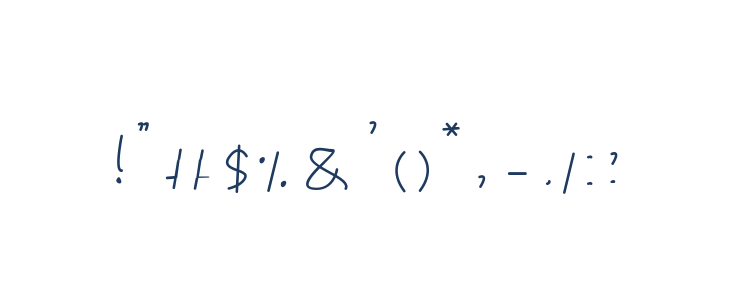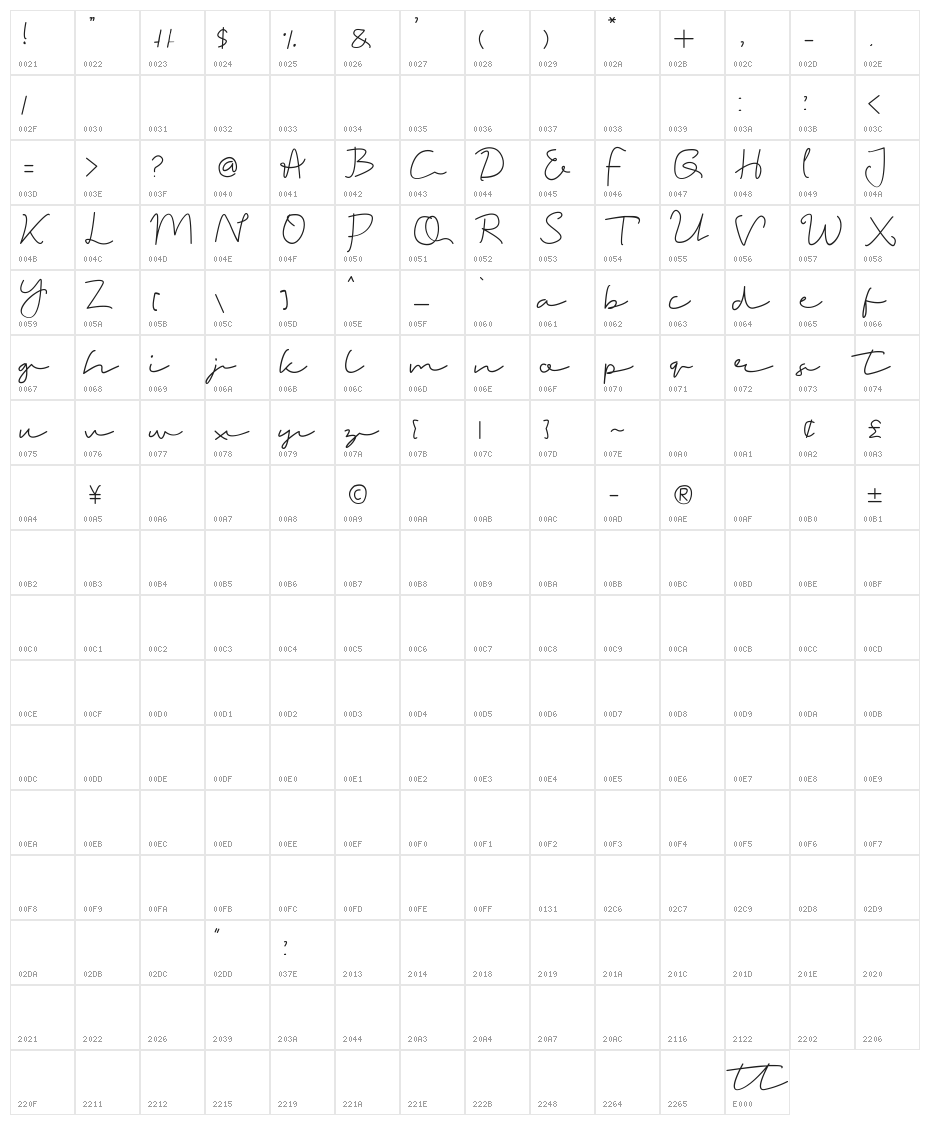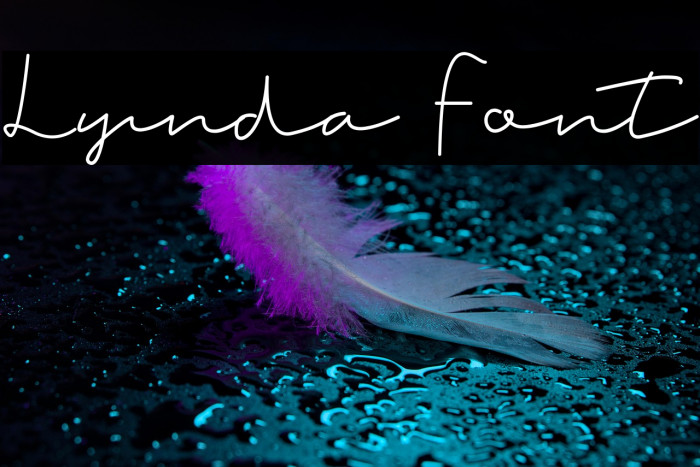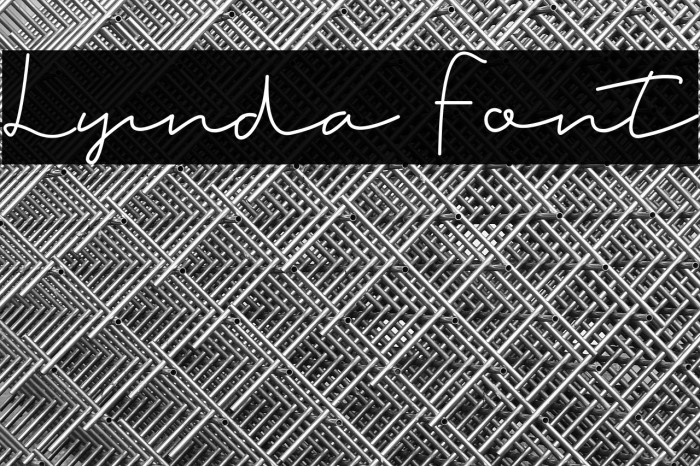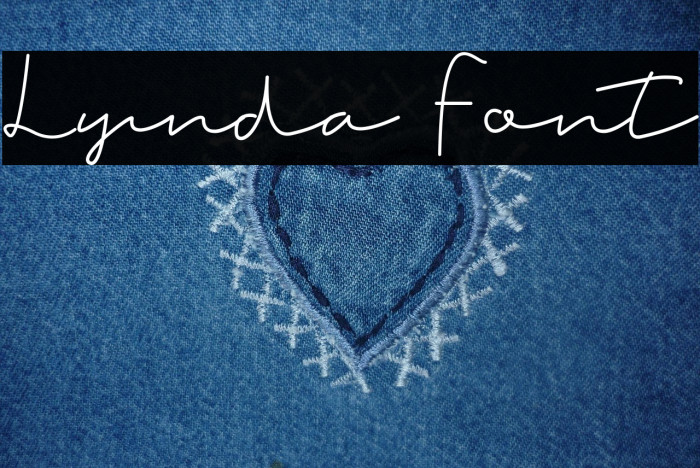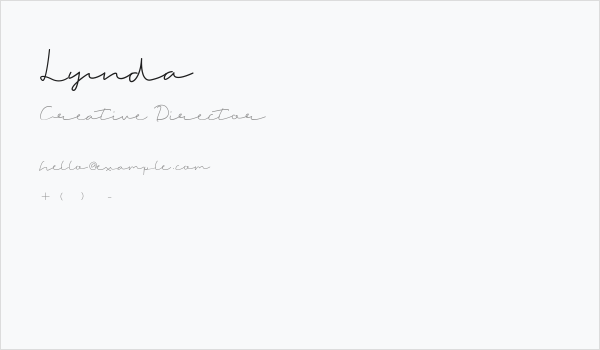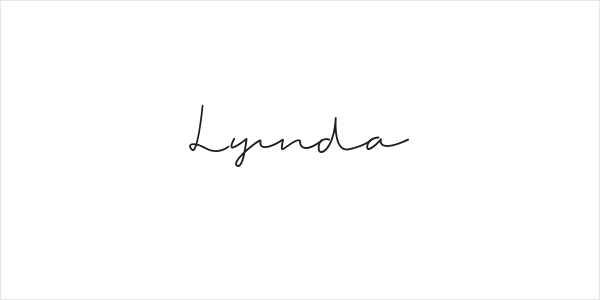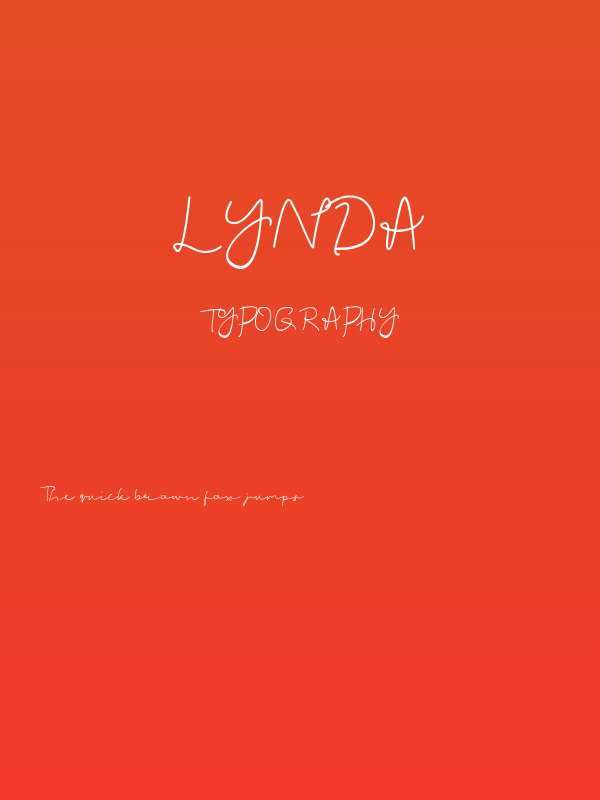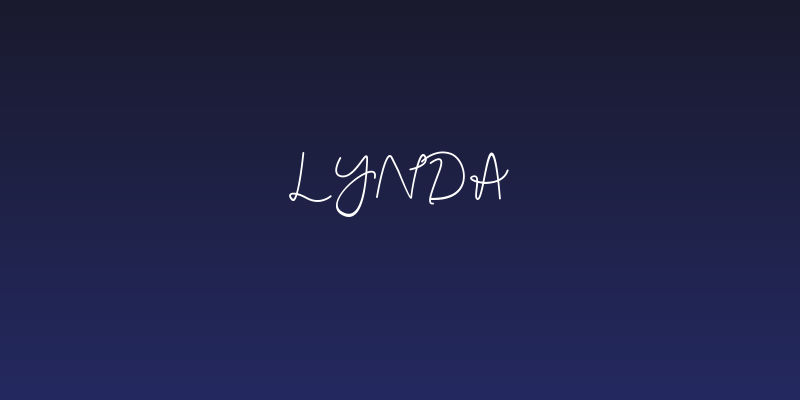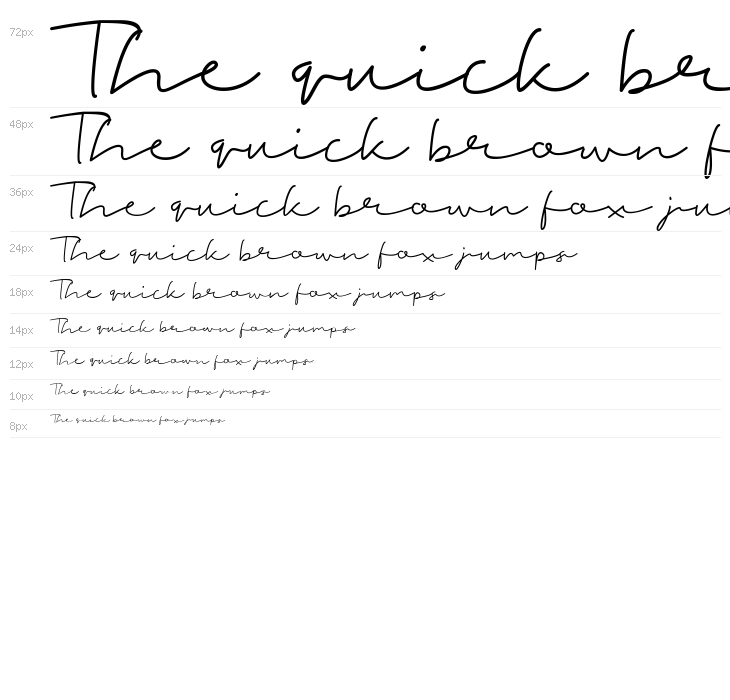
Lynda Font
Lynda Description
This font exudes a casual and elegant handwritten style, characterized by its fluid and continuous strokes that mimic natural handwriting. The uppercase letters are distinct yet harmoniously flow into one another, while the lowercase letters maintain a consistent and smooth connection, enhancing readability. The numerals and special characters are crafted with the same attention to detail, ensuring a cohesive look throughout. The overall appearance is both sophisticated and approachable, making it suitable for a variety of design contexts where a personal touch is desired.